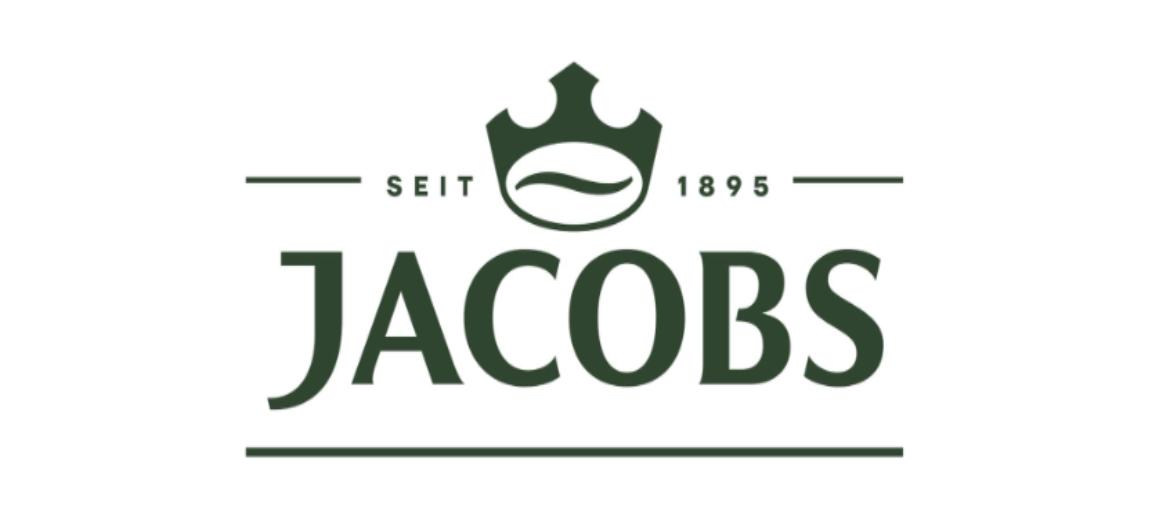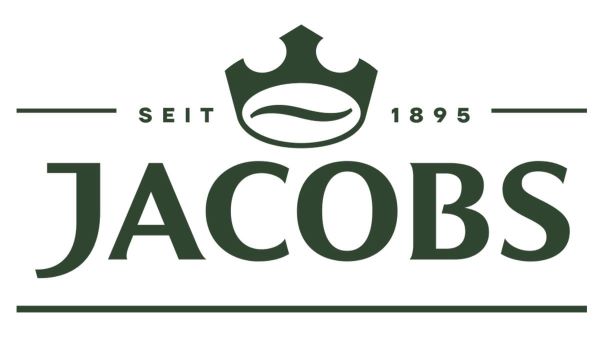
Jacobs Font
What Font is Used in the Jacobs Logo?
The Jacobs font used in the brand’s logo is most likely a custom-designed typeface, created to reflect its warm, inviting, and premium coffee identity. However, two fonts come close to matching the Jacobs logo style — Angie Sans Std Bold and Columbia Serial Xbold. Both capture the elegant curves and confident lettering seen in the iconic logo. In addition, we’ve found a free alternative font that resembles the original design, making it a great choice for projects inspired by Jacobs’ branding.
About Jacobs
Jacobs is a German coffee brand founded in 1895 by Johann Jacobs in Bremen. Known for its rich aroma and smooth flavor, Jacobs has become one of Europe’s most beloved coffee names. The brand’s golden crown logo and signature green packaging represent quality and passion for coffee, symbolizing a tradition of excellence that spans more than a century.